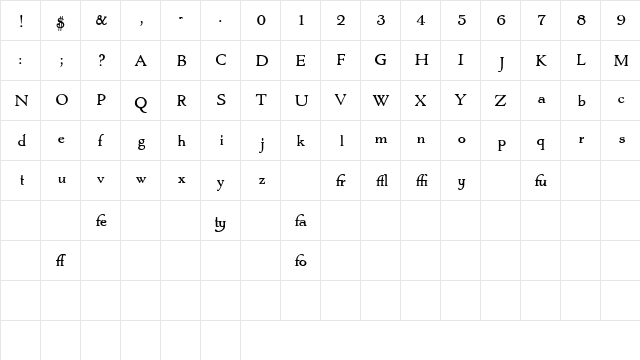
Cromwell HPLHS
Design Context for Cromwell Typeface
Cromwell offers clean, dependable letterforms without strong stylistic allegiance, making it a practical choice for designers who need flexibility.